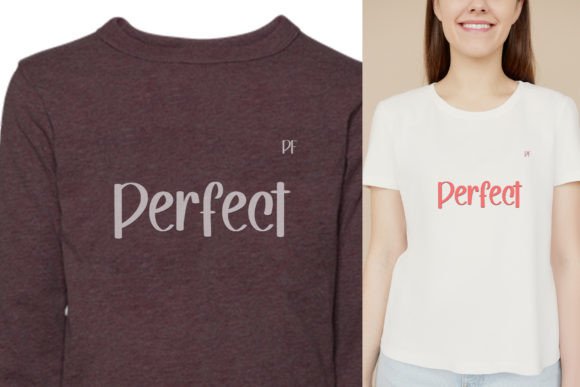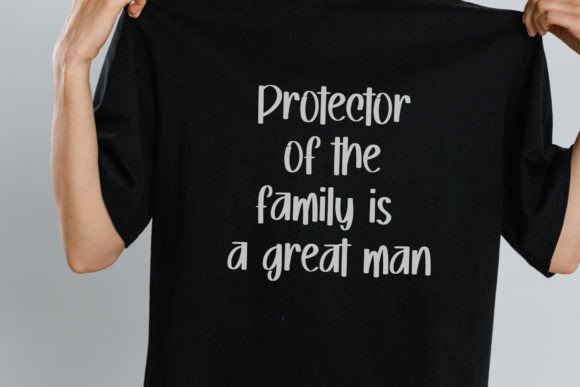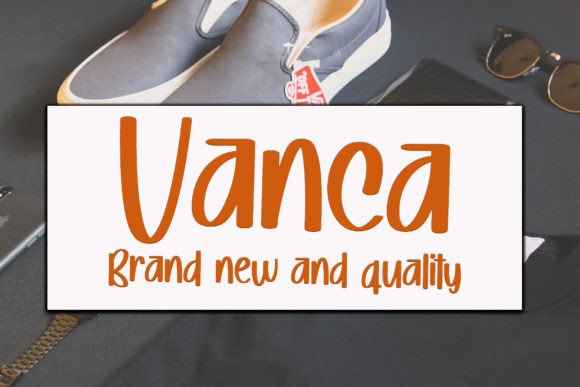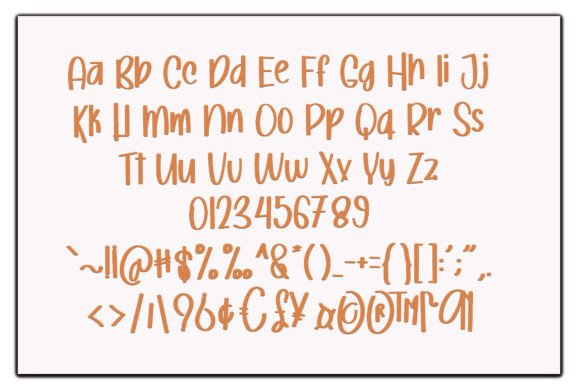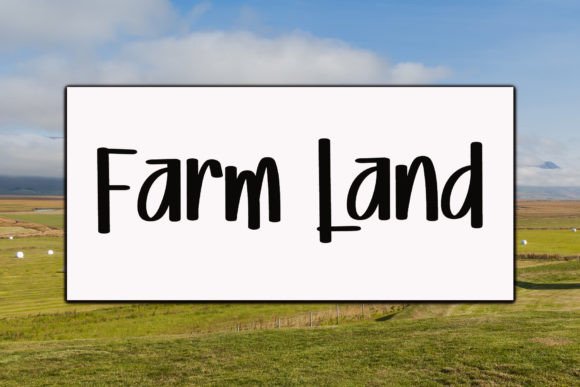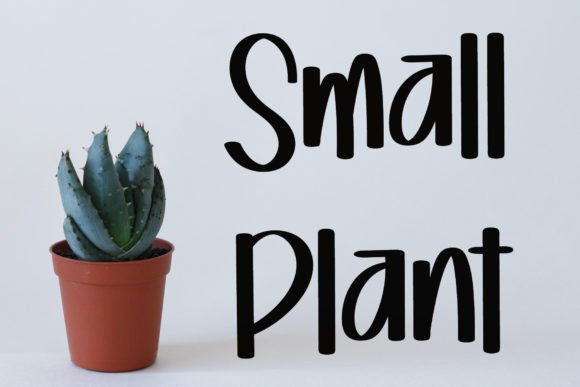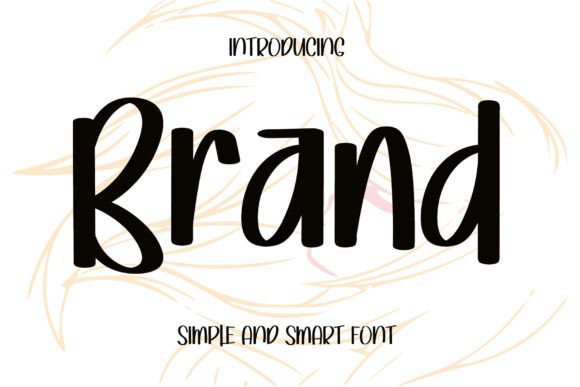
Introducing Brand Font: The Perfect Handwritten Companion for Your Design Projects
Are you on the hunt for a font that can elevate your design projects and make them stand out from the crowd? Look no further than Brand Font, a beautiful handwritten font that is perfect for crafters, designers, and anyone looking to add a touch of elegance to their work. With its distinct and timeless style, Brand Font is sure to capture your heart and become your go-to choice for a wide range of design projects.
The Beauty of Brand Font
Brand Font boasts a unique, handwritten style that exudes warmth and sophistication. Its neat and beautiful appearance makes it perfect for use in a variety of design projects, from branding and packaging to wedding invitations and social media graphics. Whether you’re looking to create a cohesive brand identity or simply want to add a personal touch to your designs, Brand Font is the perfect choice.
Distinct and Timeless Style
One of the standout features of Brand Font is its distinct and timeless style. Unlike trendy fonts that quickly go out of style, Brand Font has a classic, elegant appearance that will remain relevant for years to come. Its subtle imperfections and variations in lettering give it a human touch, making it perfect for designers who want to create authentic and engaging designs.
Brand Font is incredibly versatile and can be used in a wide range of design projects, including:
- Branding and Packaging: Create a cohesive brand identity with Brand Font, and use it to design stunning packaging, labels, and business cards.
- Wedding Invitations and Stationery: Add a touch of elegance to your wedding invitations, stationery, and other paper goods with Brand Font’s beautiful handwritten style.
- Social Media Graphics: Use Brand Font to create eye-catching social media graphics, quotes, and posts that will help you stand out from the crowd.
- Blogging and WordPress: Add a personal touch to your blog or WordPress site with Brand Font, and use it to create stunning headings, titles, and other text elements.
Why Choose Brand Font?
So why should you choose Brand Font over other fonts? Here are just a few reasons:
- Unique and Distinctive: Brand Font has a unique and distinctive style that will help your designs stand out from the crowd.
- Timeless and Classic: Unlike trendy fonts, Brand Font has a timeless and classic appearance that will remain relevant for years to come.
- Easy to Read: Brand Font is incredibly easy to read, making it perfect for use in body text, headings, and titles.
- Highly Versatile: Brand Font can be used in a wide range of design projects, from branding and packaging to wedding invitations and social media graphics.
Tips for Using Brand Font
Here are a few tips for using Brand Font in your design projects:
- Experiment with Different Sizes: Brand Font looks great in a variety of sizes, from small body text to large headings.
- Pair it with Other Fonts: Try pairing Brand Font with other fonts to create a unique and eye-catching combination.
- Use it Consistently: Use Brand Font consistently across your design projects to create a cohesive brand identity.
Brand Font is a beautiful handwritten font that is perfect for designers, crafters, and anyone looking to add a touch of elegance to their work. With its distinct and timeless style, Brand Font is sure to capture your heart and become your go-to choice for a wide range of design projects. Whether you’re looking to create a cohesive brand identity or simply want to add a personal touch to your designs, Brand Font is the perfect choice.